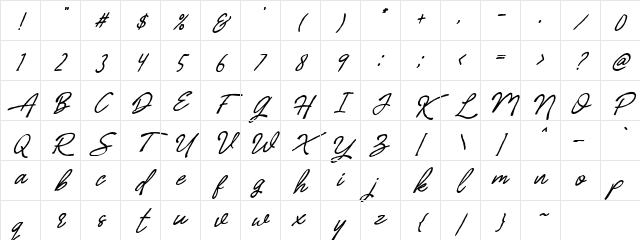
Billenia Standard
Foundry: Sarid Ezra
Designer: Sarid Ezra
Design Context for Billenia
Billenia is a composed and adaptable typeface that performs quietly and consistently across a wide range of design contexts.